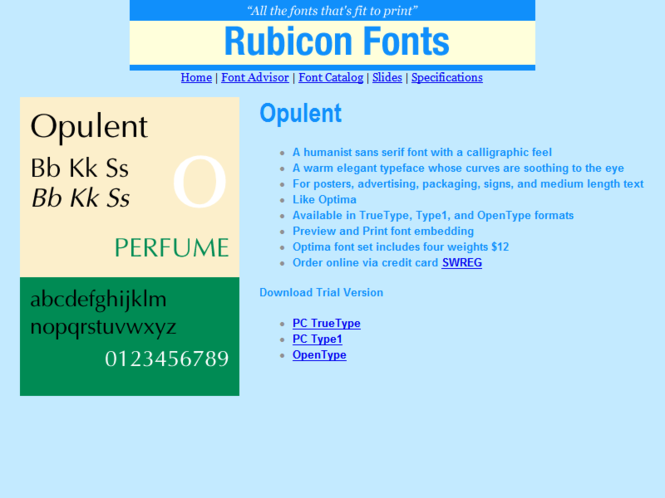
Humanist sans serif font with a calligraphic look. Like Optima. A warm elegant typeface whose curves are soothing to the eye. An all purpose design, great for posters, advertising, packaging, signs, and medium length text. Accurate and hinted, matching font metrics, standard character set, kerning pairs. Professional print quality for inkjet, laser, typesetter to 3500 dpi. Contrains 1 trial font. Purchasers receive 4 font variants as follows: Normal, Oblique, Bold, Bold Oblique.